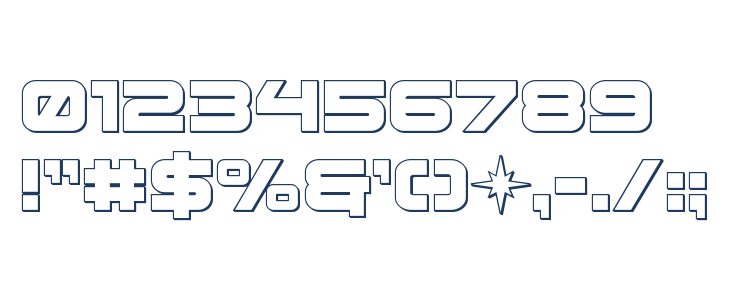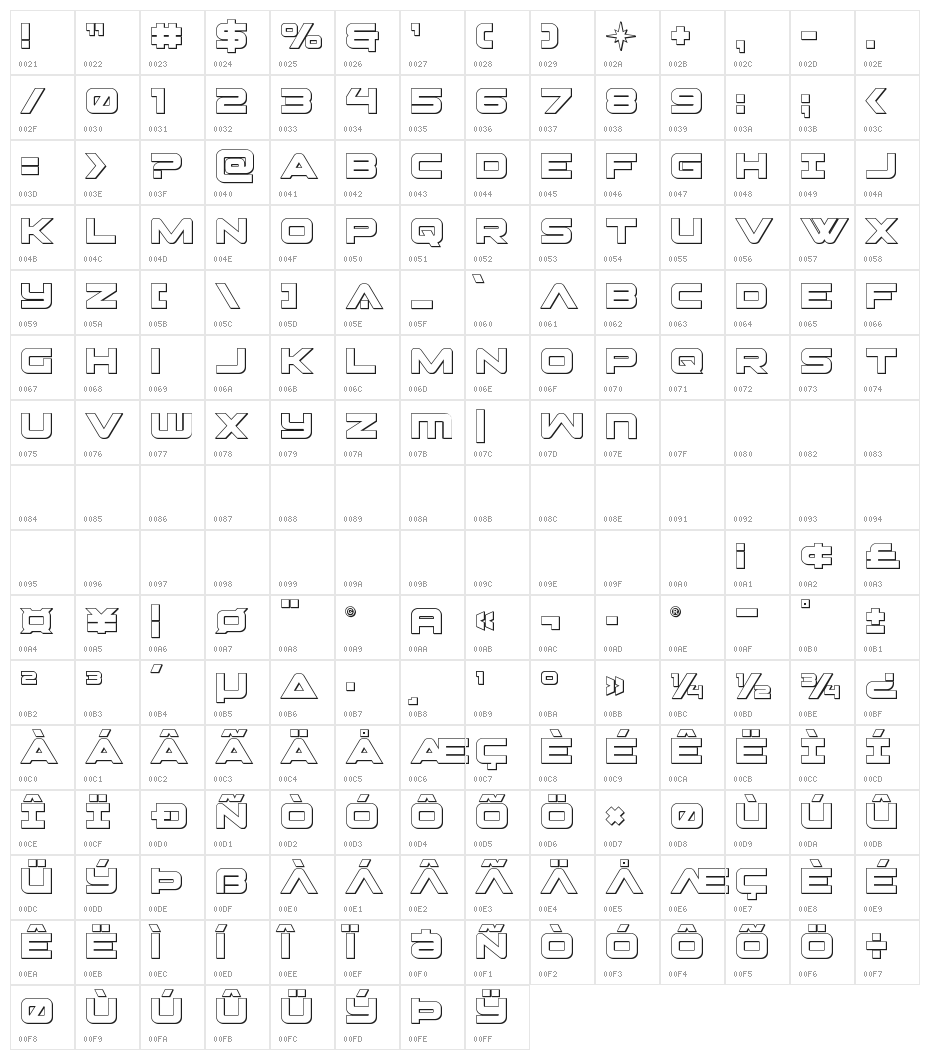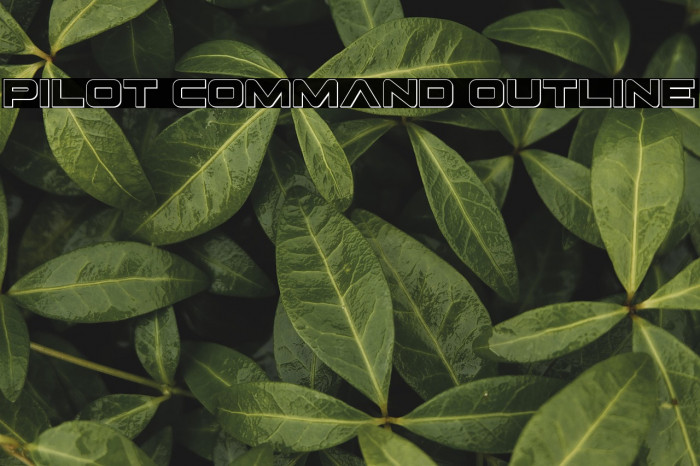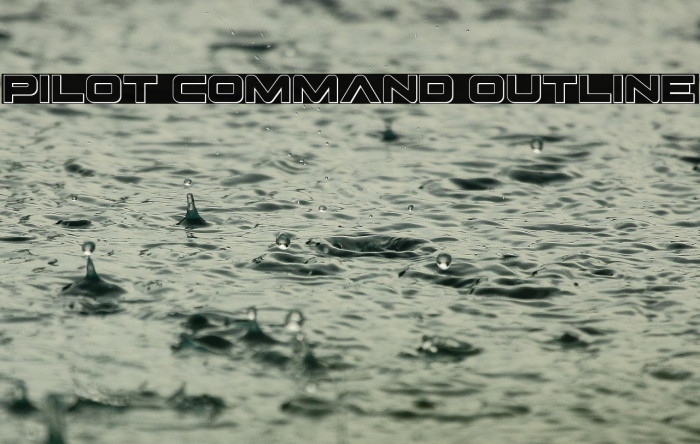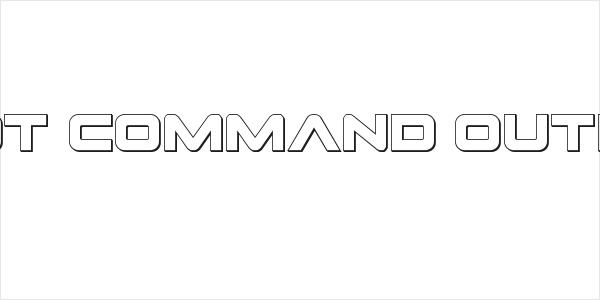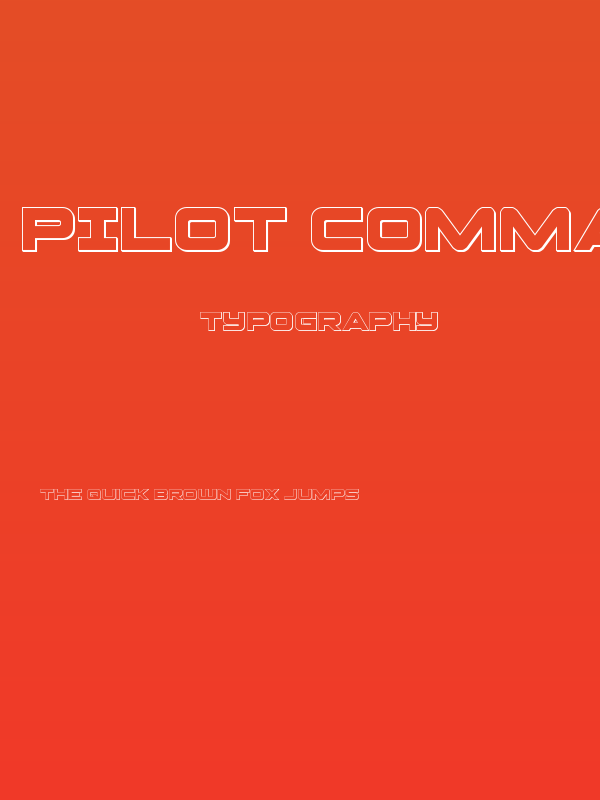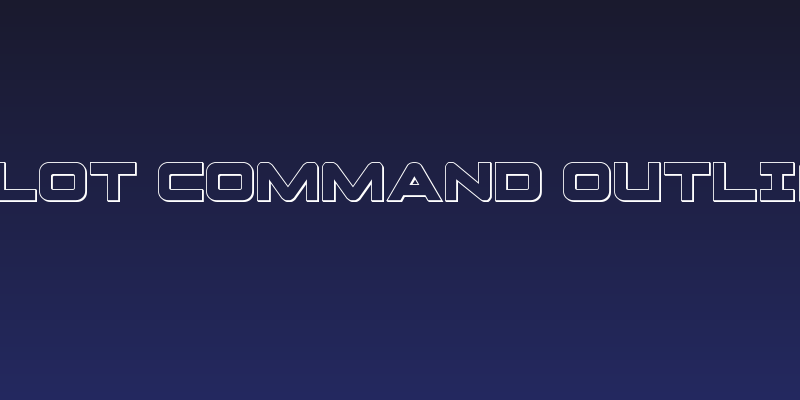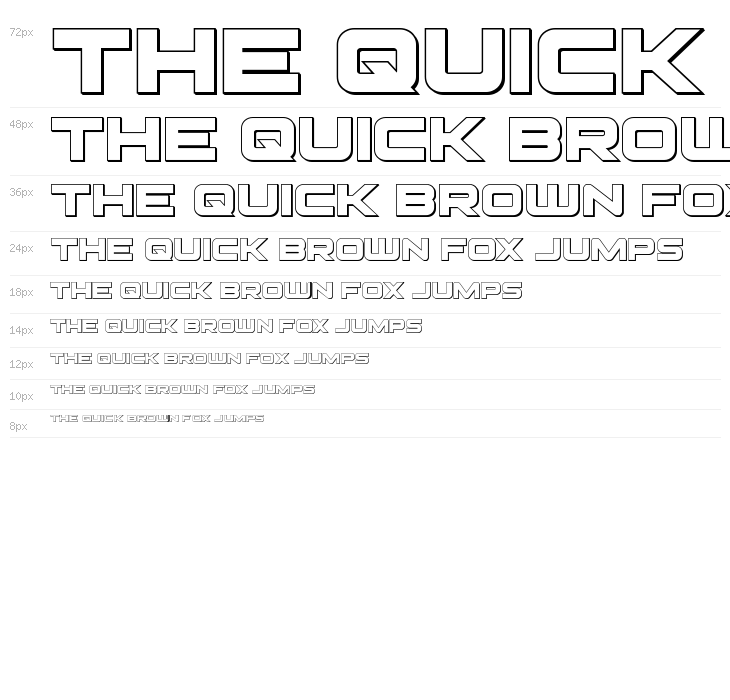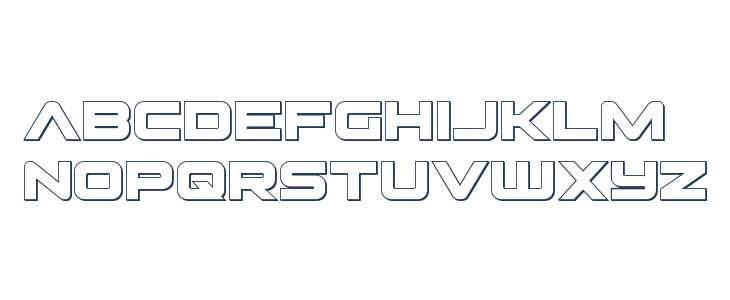
Pilot Command Outline Font
Pilot Command Outline Description
This font features a bold, geometric design with a distinct outline style, creating a futuristic and technical appearance. The characters are constructed with sharp angles and straight lines, giving them a structured and mechanical feel. The uppercase letters are uniform in height, while the numerals and special characters maintain the same bold outline, ensuring consistency across all glyphs. The font's outline nature provides a sense of openness and space, making it suitable for designs that require a modern and clean aesthetic.
| Proposed Projects | Ideal for technology-themed designs, video game titles, sci-fi movie posters, and branding for tech companies. |